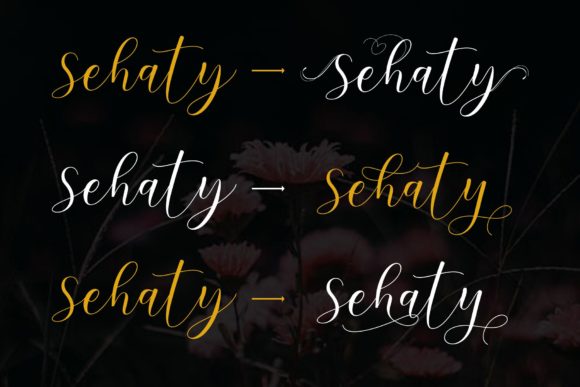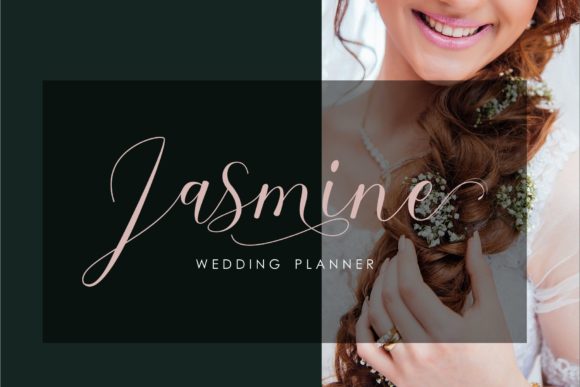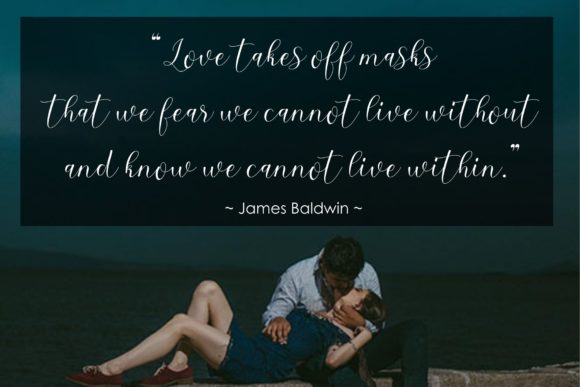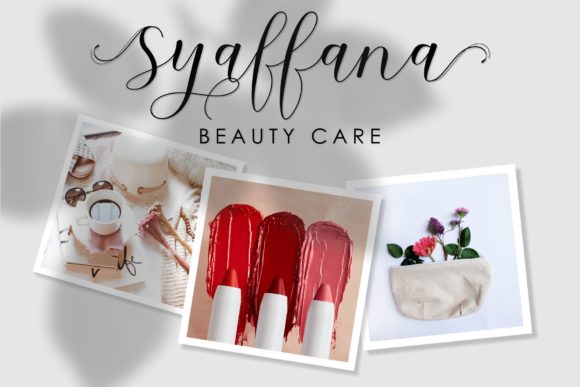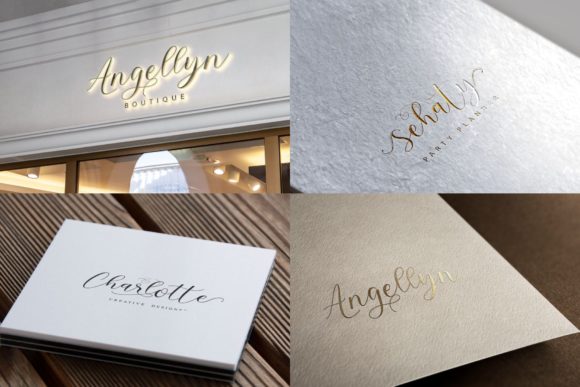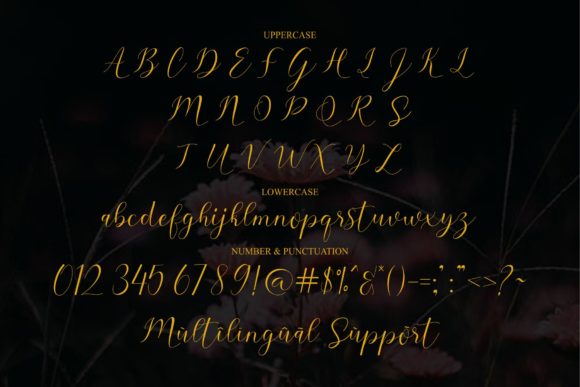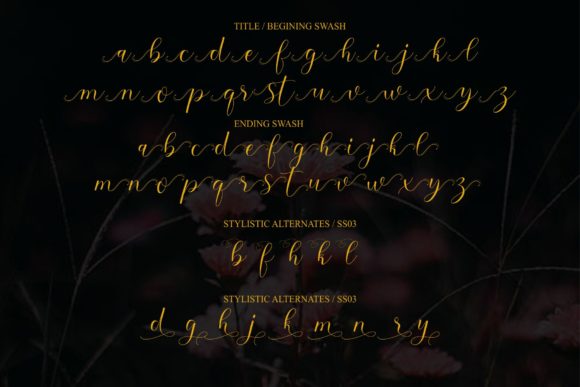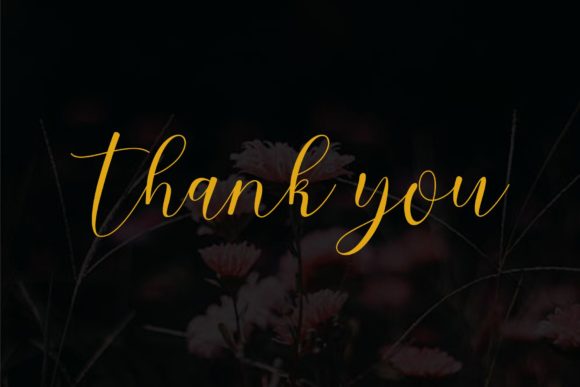
Sehaty Font
About Sehaty Font
Sehaty is a beautiful and elegant handwritten font with bold swashes. It will add a touch of sophistication to any crafting project!